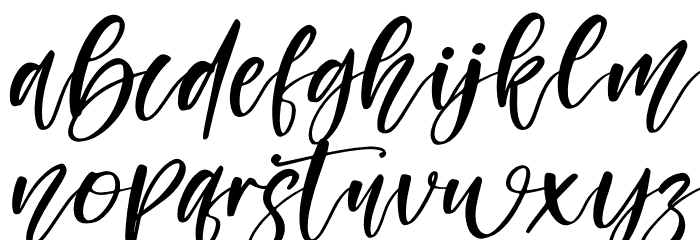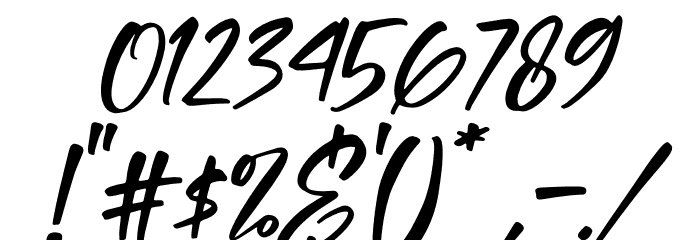
Amigoste Italic Font
This font features a dynamic and flowing script style, characterized by its elegant, cursive letterforms. The strokes are smooth and fluid, giving it a handwritten appearance that is both stylish and approachable. The letters are slightly slanted, enhancing the italic nature of the font. It maintains a consistent stroke width, providing a balanced and harmonious look. The uppercase letters are bold and prominent, while the lowercase letters are more delicate, offering a nice contrast. The numerals and special characters are designed to match the overall aesthetic, ensuring a cohesive look across all elements.
A dynamic, flowing script font with an elegant, handwritten style.
- Proposed Projects: Ideal for wedding invitations, greeting cards, branding, and social media graphics.
- Use Case: Logos, Invitations, Social Media